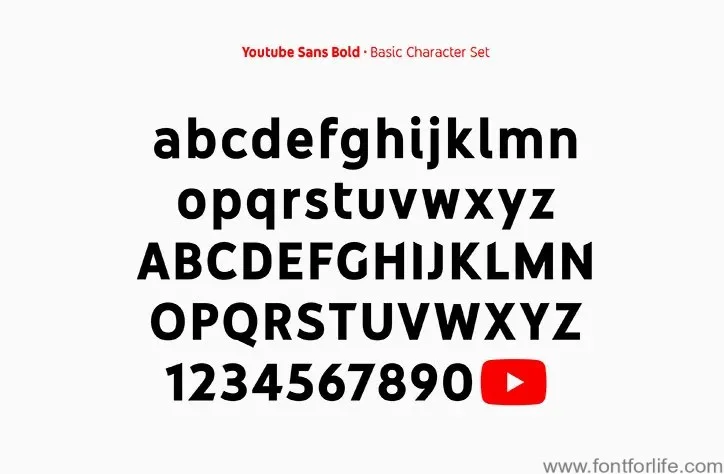
Youtube Sans Font is perfect for video content branding, digital media platforms, social media graphics, streaming service interfaces, content creator logos, modern tech branding, video editing thumbnails, online marketing materials, digital publication headers, influencer branding, web application interfaces, and any design project requiring a contemporary digital-native aesthetic.
What makes Youtube Sans Font exciting is its modern digital character that reflects the dynamic nature of online video culture and content creation. The font's clean and friendly letterforms create an accessible and engaging visual experience, making it ideal for brands operating in digital spaces where connection and relatability are essential. Its contemporary styling resonates with audiences immersed in digital media, while its excellent screen readability ensures optimal performance across all devices.
The Youtube Sans Font family typically includes multiple weights, uppercase and lowercase characters, numerals, punctuation marks, and optimized digital display characteristics for screen applications.